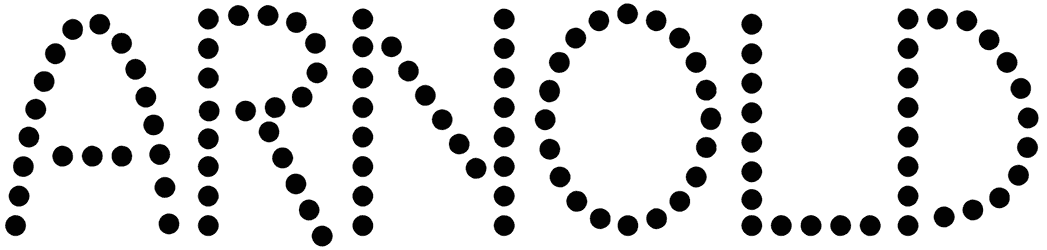
Arnold Font
This dotted font perfectly resembles both a bright disco club party sign and the design of a kindergarten wall. With a digital and modern design, the Arnold font will give off a cool sense to your reader and round out your words with its dotted design. This dotted font can be used for technology text titles, movie headlines, channel banners, electro-party flyers, or product introductions.